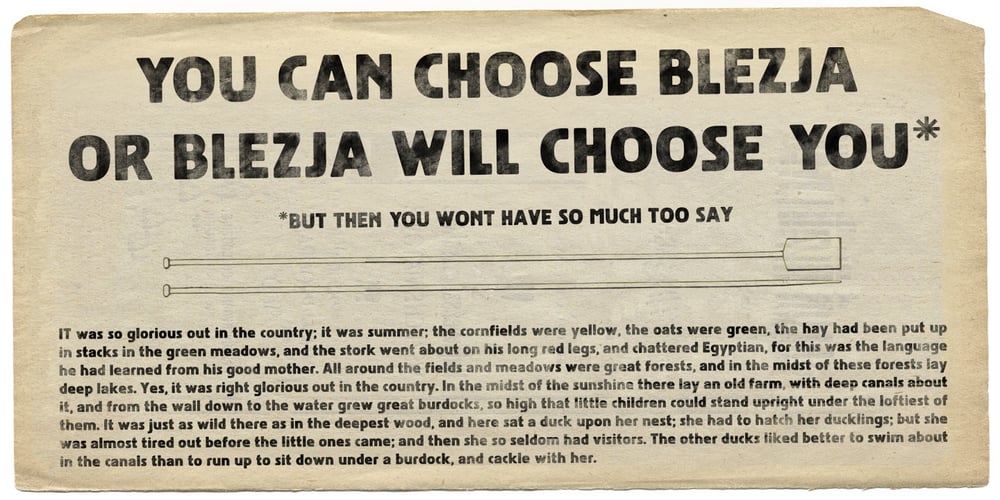
Blezja Font Family was designed by published by Typoforge Studio. Blezja contains 2 styles and family package options. To design a font Blezja, I was inspired by an old metal tin from 1907 from Potsdam, which was used to store earplugs. From a few letters I created whole typeface – lower and uppercase characters.